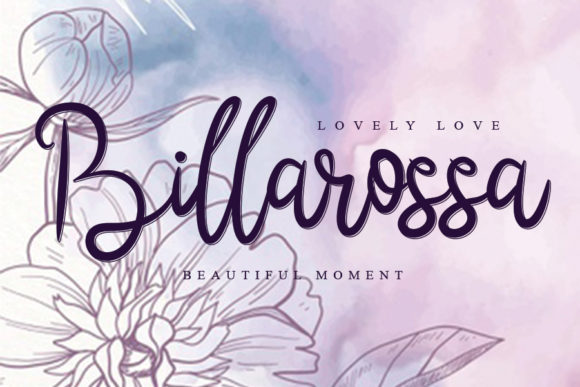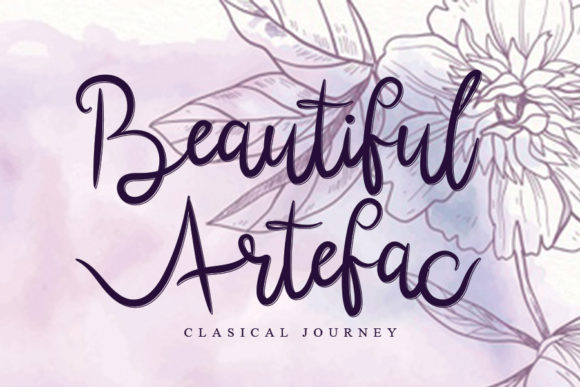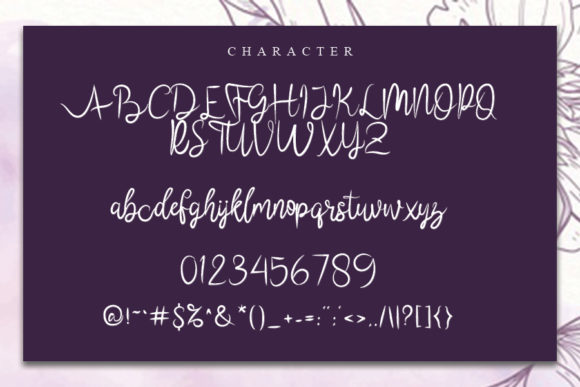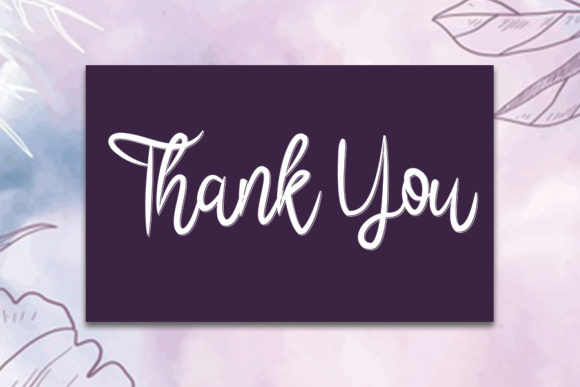
Sallirra Font
About Sallirra Font
Introducing Sallirra, a delicate and flowing handwritten font that exudes elegance and grace. Its versatility knows no bounds, making it a perfect choice for a wide range of design projects. Whether you’re crafting enchanting wedding invitations, creating beautiful stationery art, designing eye-catching social media posts, or exploring countless other creative endeavors, Sallirra is the font that will capture your heart and elevate your designs to new heights of beauty.
Sallirra’s delicate and flowing strokes create an air of refinement and allure. Each letter is carefully crafted, showcasing the font’s versatility and charm. Whether you’re planning a grand wedding celebration or conveying a heartfelt message, Sallirra adds a touch of timeless beauty and authenticity to your projects.
With its incredibly versatile style, Sallirra adapts seamlessly to various design settings. From luxurious wedding invitations that set the tone for an unforgettable celebration to stunning stationary art that captivates the beholder, Sallirra brings a touch of elegance and sophistication to every creation.
In the realm of social media, Sallirra transforms your posts into visual masterpieces. Its flowing script adds a sense of artistry and allure to your content, making it stand out in the crowded digital landscape.
Gorgeous quotes and heartfelt messages come to life with Sallirra. The font’s delicate flow adds an emotional touch, making your words resonate with the reader’s heart.
In branding and logo design, Sallirra becomes a symbol of refined elegance and creativity. Its versatility allows you to create a distinct and memorable brand identity that leaves a lasting impression on your audience.
In conclusion, Sallirra is more than just a font; it’s an invitation to explore the world of creativity and beauty. With its delicate and flowing style, Sallirra becomes an invaluable asset for all your design projects. Embrace the captivating allure of Sallirra and watch as your creations come alive with elegance and grace. Let your imagination soar in the delicate and flowing embrace of Sallirra, the handwritten font that defines versatility and artistic brilliance in every stroke.